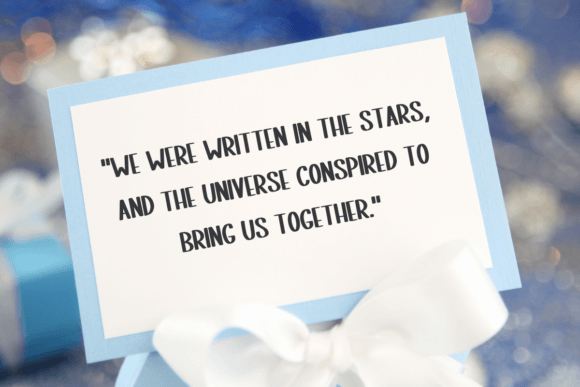
Simple Teacher Font
Simple Teacher Font is a clean and modern sans-serif typeface with a touch of playful charm. Its hand-drawn feel makes it perfect for educational materials, classroom projects, posters, and creative designs that need an approachable yet professional look. Bring clarity and personality to your work with Simple Teacher!